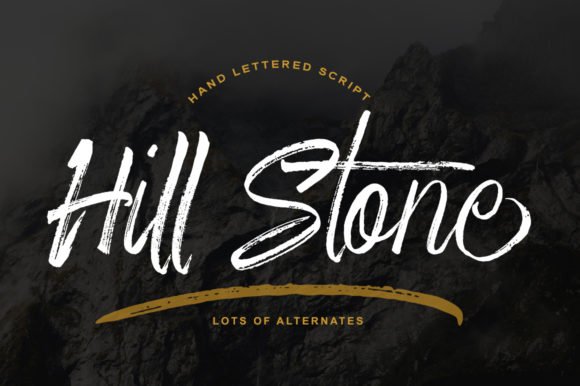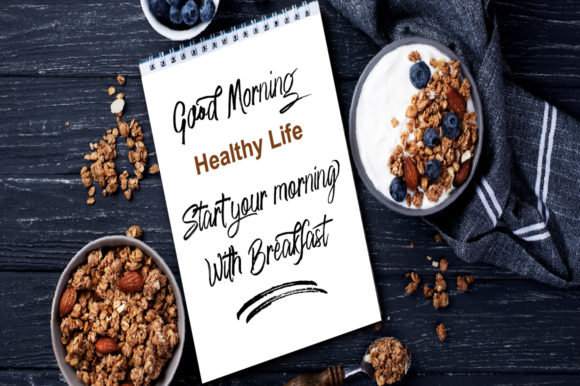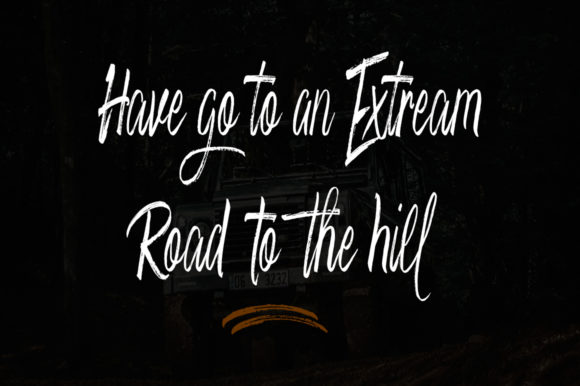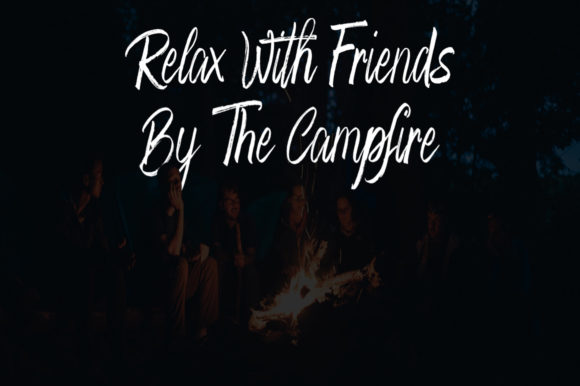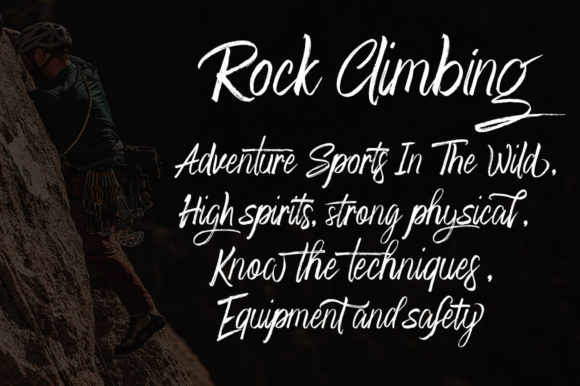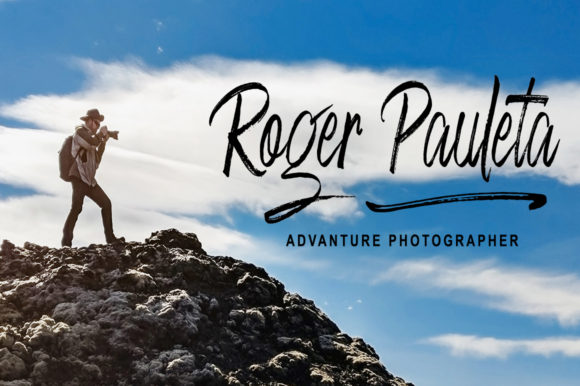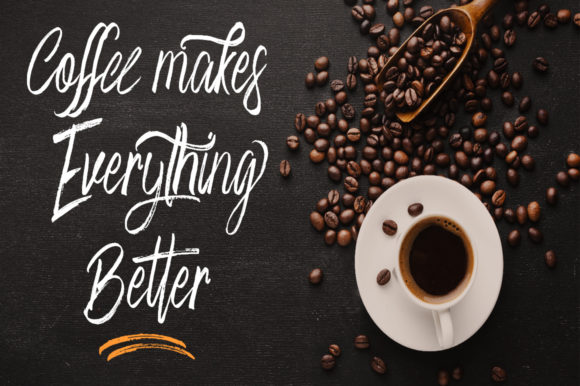
The Power of Handwritten Touch: Elevate Your Designs with Hill Stone Font
Remember that moment when you sat down with a blank sheet of paper and a pen, waiting for inspiration to strike? You start doodling, letting your hand move freely, and suddenly, a beautiful, unique piece of art emerges. It’s in these moments that we connect with our creative selves, and the lines between reality and imagination blur. For designers, finding that perfect handwritten touch can make all the difference in elevating their work.
Enter Hill Stone Font, a stunning, bold, and beautiful handwritten font carefully crafted with the help of a brush pen. This beautiful font is designed to add a personal, touchable feel to your designs, making it perfect for creating invitations, quotes, or any other project where a unique, handwritten style is desired. With its varying baseline, smooth lines, gorgeous glyphs, and stunning alternates, the Hill Stone Font is a valuable tool for designers looking to add that special something to their work.
Hill Stone Font Key Features
- Unique Characteristics: This font features a unique blend of modern and ancient elements, with intricate details and ornaments that set it apart from other fonts.
Honest Review of Hill Stone Font
I’ve had the chance to work with the Hill Stone Font, and I must say, it’s a unique and interesting choice. Here’s what I think:
- Distressed texture: The Hill Stone Font’s distressed texture adds a touch of ruggedness and sophistication to any design. It’s perfect for creating a vintage or rustic look.
- High legibility: Despite its unique texture, the font remains highly legible, making it easy to read even at smaller sizes.
- Lack of consistency: The font’s distressed texture can sometimes look inconsistent, which can be jarring to the eye.
Overall, I think the Hill Stone Font is a solid choice for designers who want to add a unique touch to their designs. While it has some limitations, its distressed texture and high legibility make it a great option for certain projects. Just be aware of the potential compatibility issues and lack of support before investing in this font.
Common Use Cases for Hill Stone Font
Hill Stone Font is ideal for use in:
– Branding and logo design
– Web design and development
– Print design and marketing materials
– Digital signage and displays